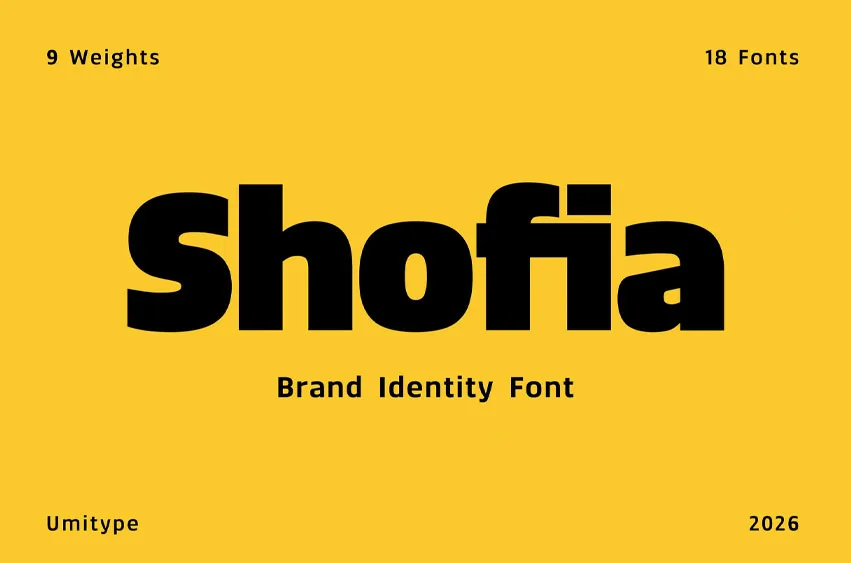
Shofia Font
Shofia Font is a modern brand identity font family created to bring elegance, clarity, and sophistication to contemporary branding projects. With its refined sans serif letterforms, balanced proportions, and clean construction, Shofia delivers a professional visual presence that helps brands communicate with confidence and style.
Designed with a minimalist approach, Shofia combines modern simplicity with subtle geometric influences to create typography that feels both timeless and distinctive. Every character is carefully crafted to maintain consistency across different weights, making it an excellent choice for logos, visual identities, and premium design applications.
Featuring smooth curves, precise spacing, and meticulously optimized kerning, Shofia provides exceptional readability while preserving a strong and memorable character. Its clean appearance allows every design to look polished, making it suitable for everything from bold brand marks to elegant editorial layouts.
Shofia adapts effortlessly to a wide range of creative industries, including fashion, beauty, technology, architecture, hospitality, luxury products, corporate businesses, and lifestyle brands. Whether used for a startup identity or an established company, the font creates a modern and trustworthy visual impression.
Created primarily for branding and display typography, Shofia performs beautifully in logos, headlines, packaging, websites, presentations, and marketing materials. Its versatile design offers the flexibility needed to build cohesive brand experiences across both print and digital platforms.
Key Features
Modern Brand Identity Font Designed to create clean, professional, and memorable branding.
Elegant Sans Serif Style Minimal letterforms with refined geometric proportions.
Versatile Font Family Suitable for logos, headlines, packaging, and editorial design.
Balanced & Readable Optimized spacing and proportions for outstanding visual clarity.
Professional Kerning Carefully refined character spacing for polished typography.
Multilingual Support Extended glyph collection for international design projects.
Weights Style :
Create Strong and Memorable Brand Identities
Shofia is designed to help designers, studios, and businesses create elegant visual identities with confidence. Its clean sans serif construction, refined details, and versatile font family make it a reliable choice for modern logos, premium branding, and sophisticated typography across every creative project.